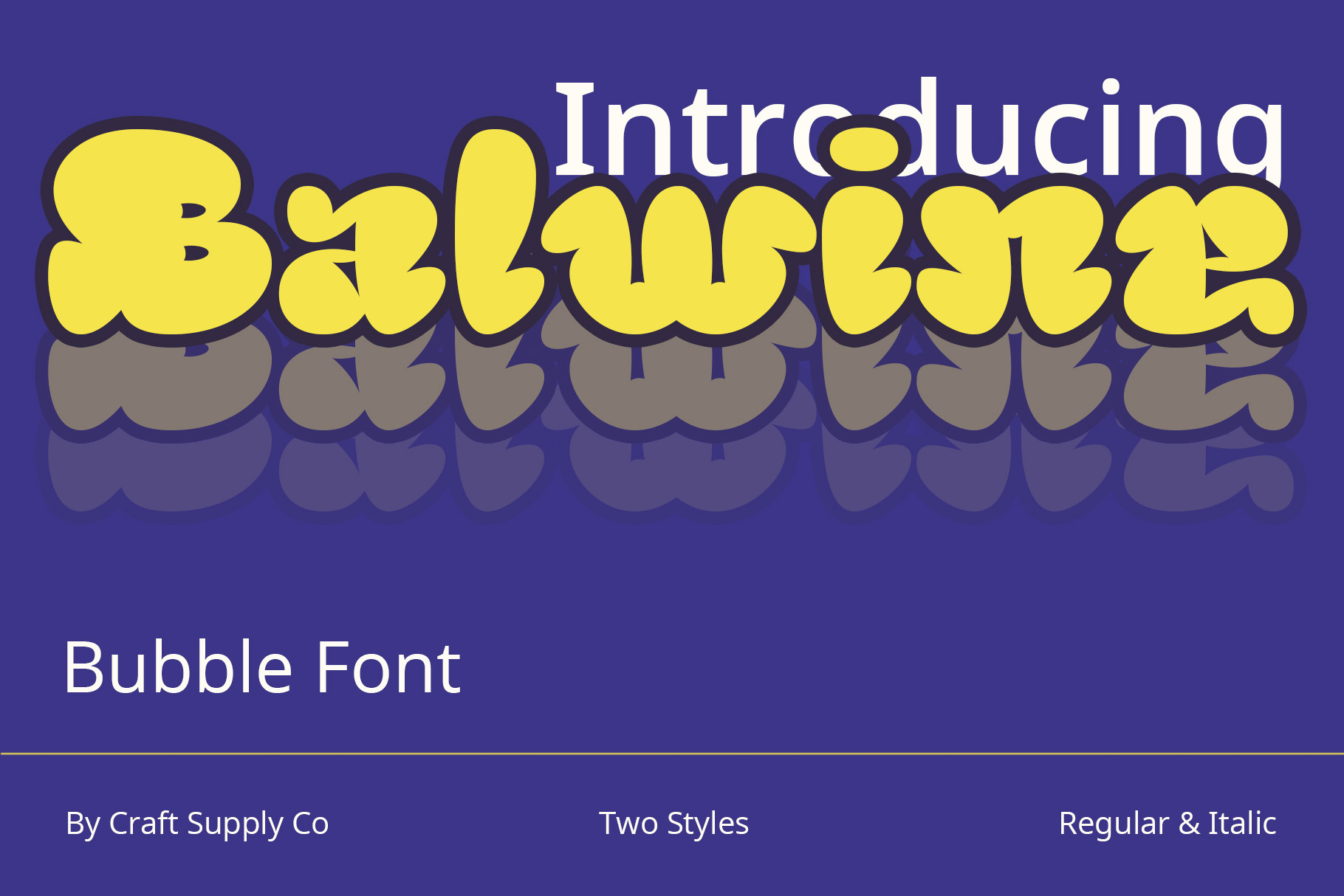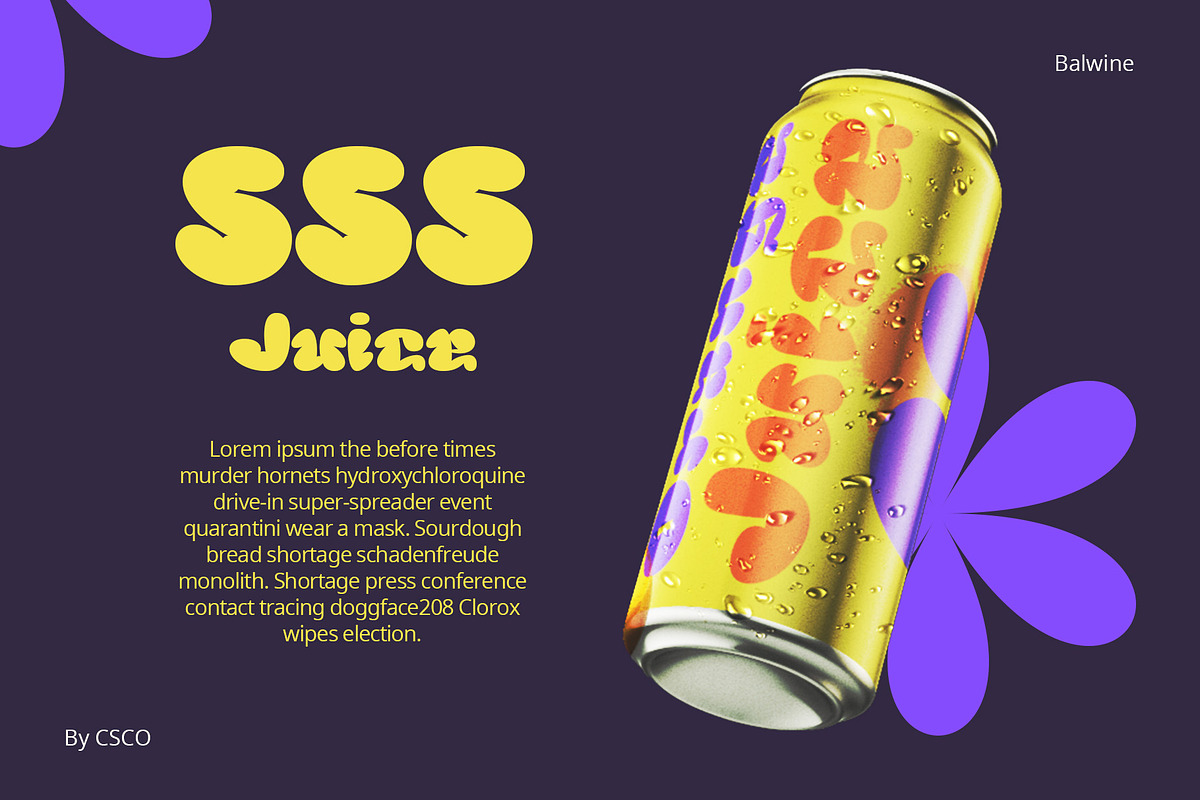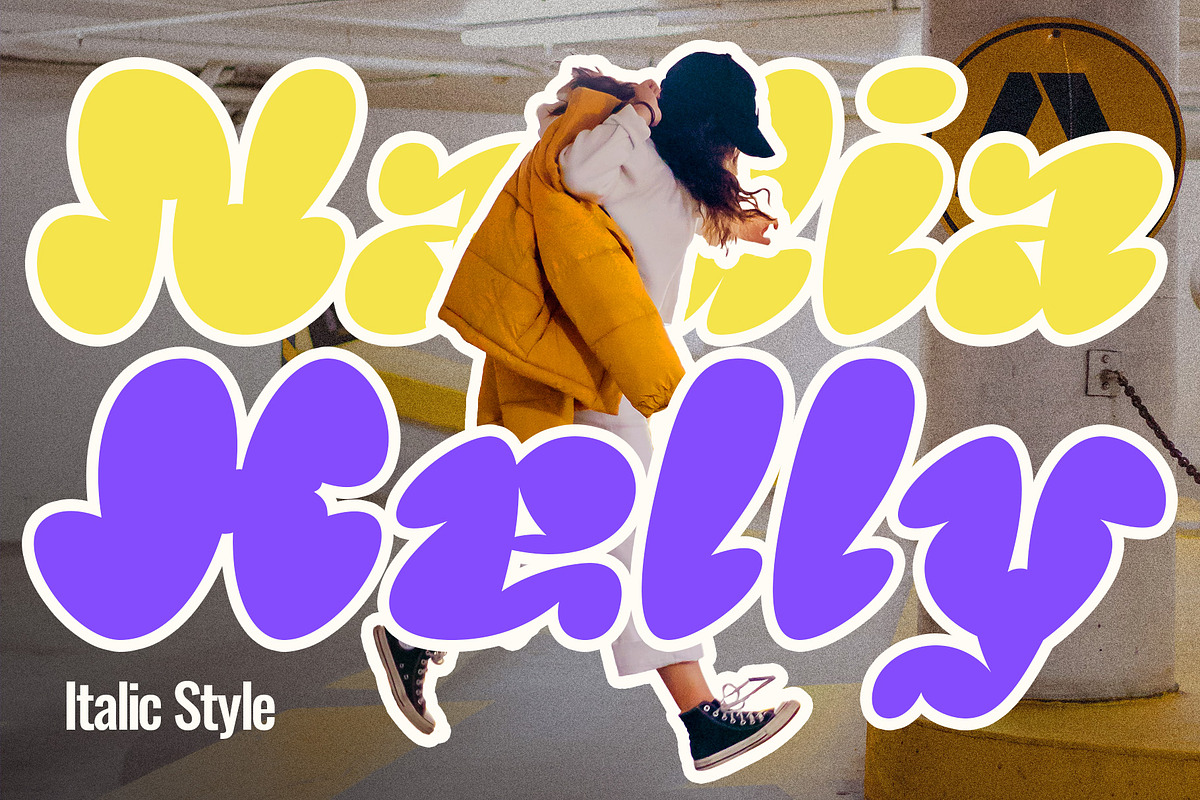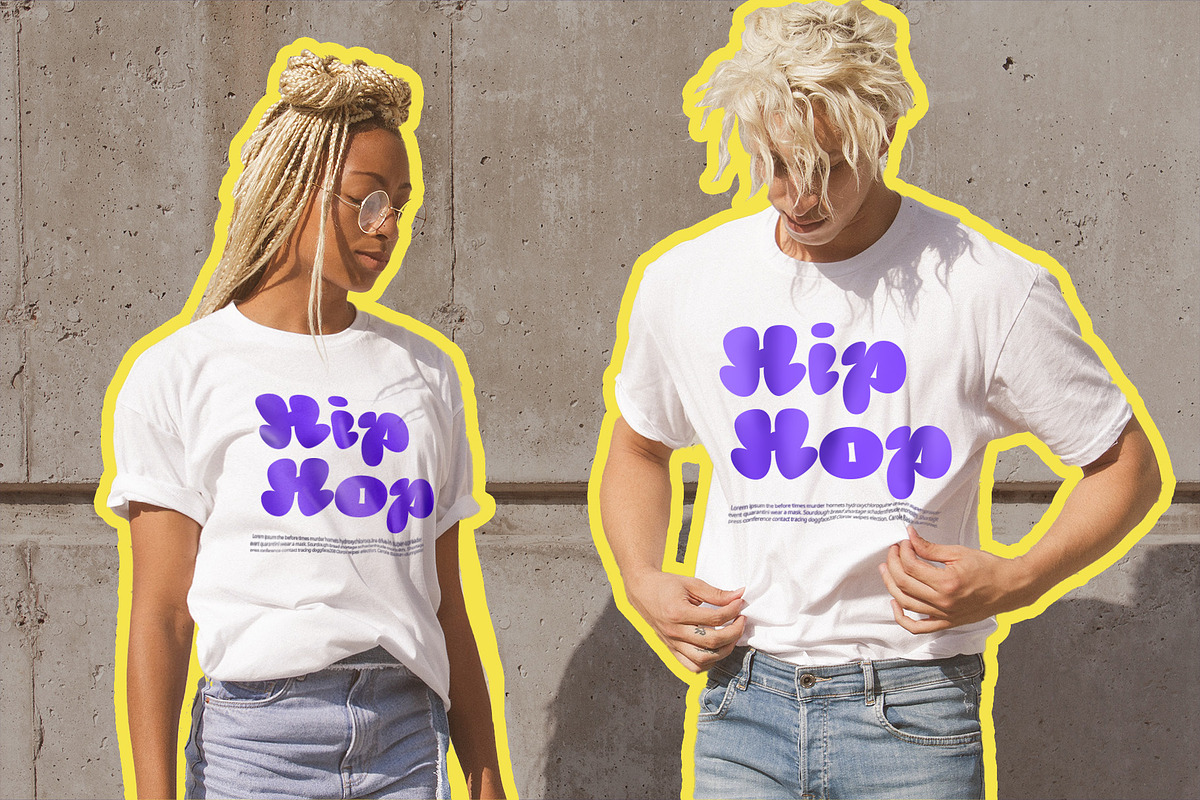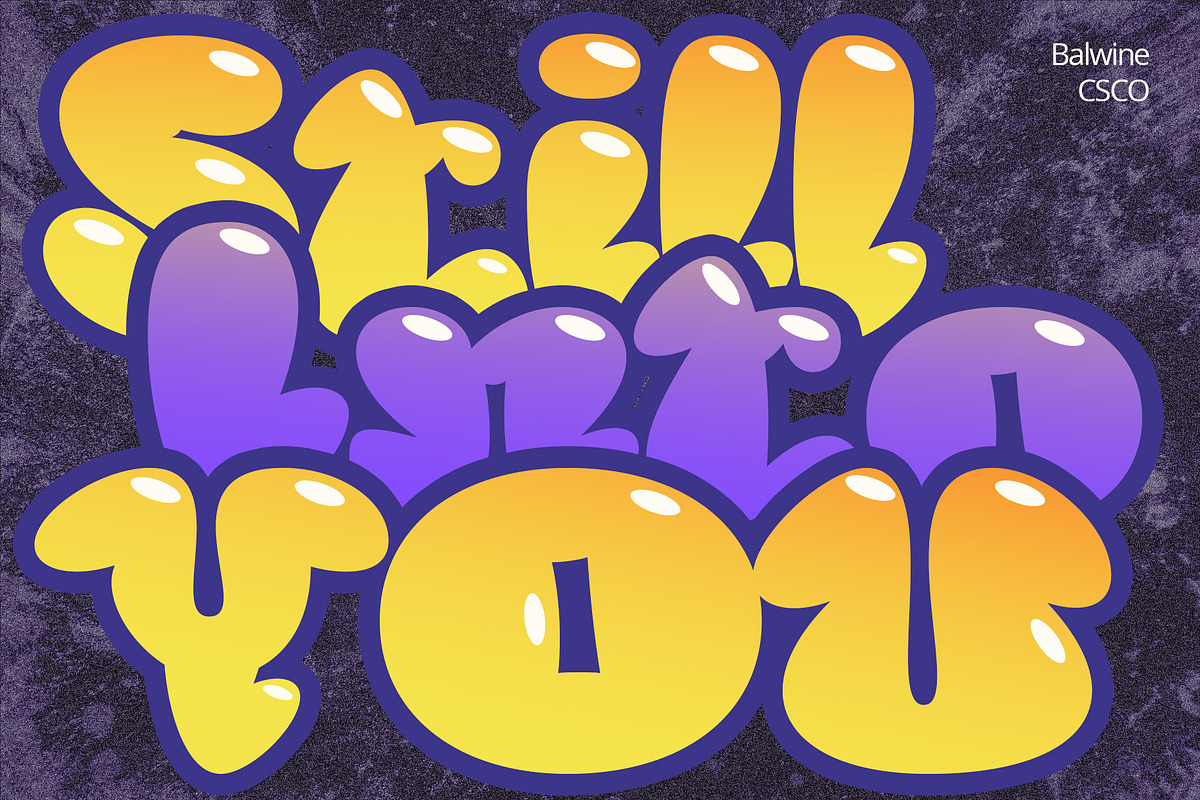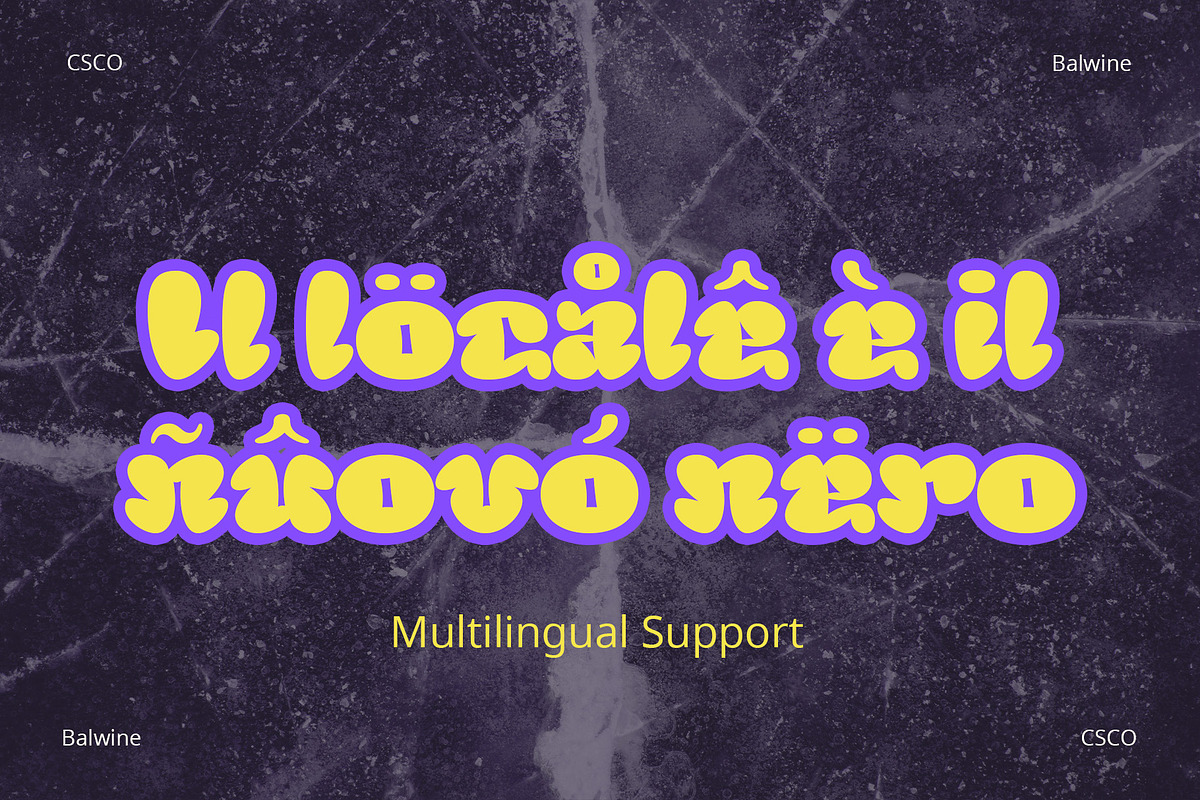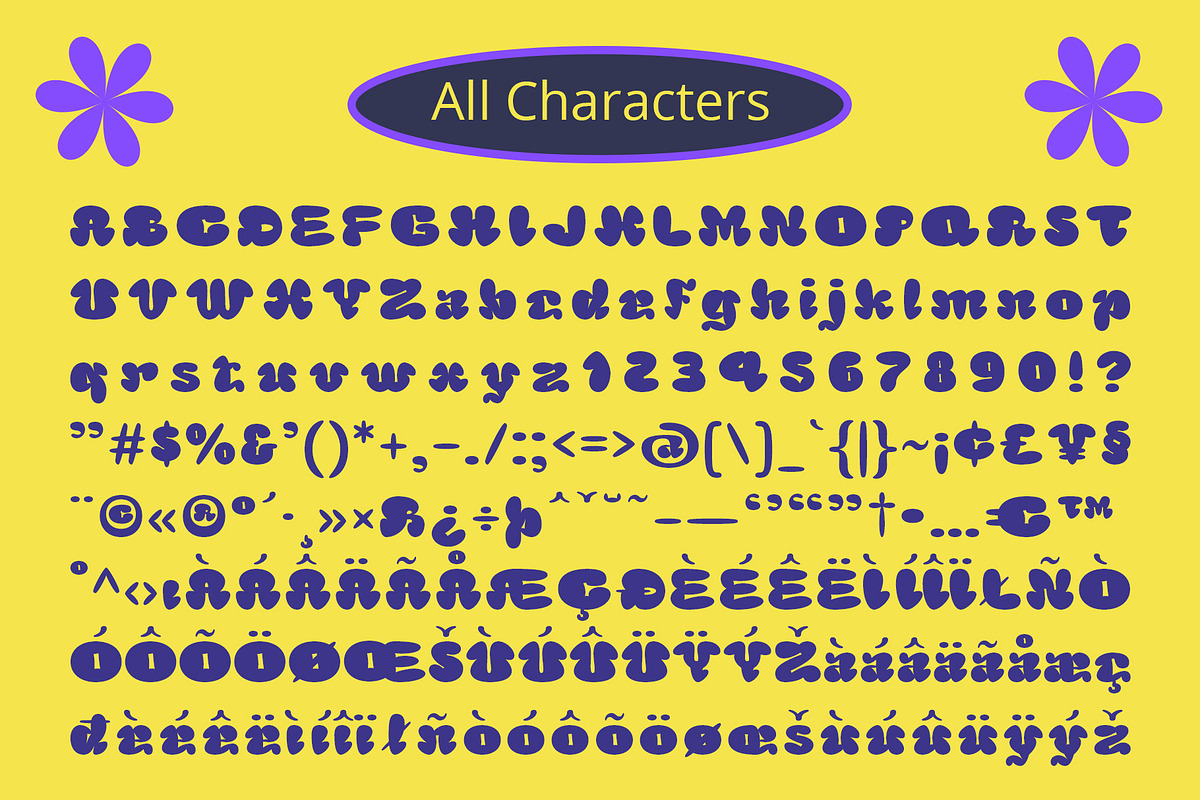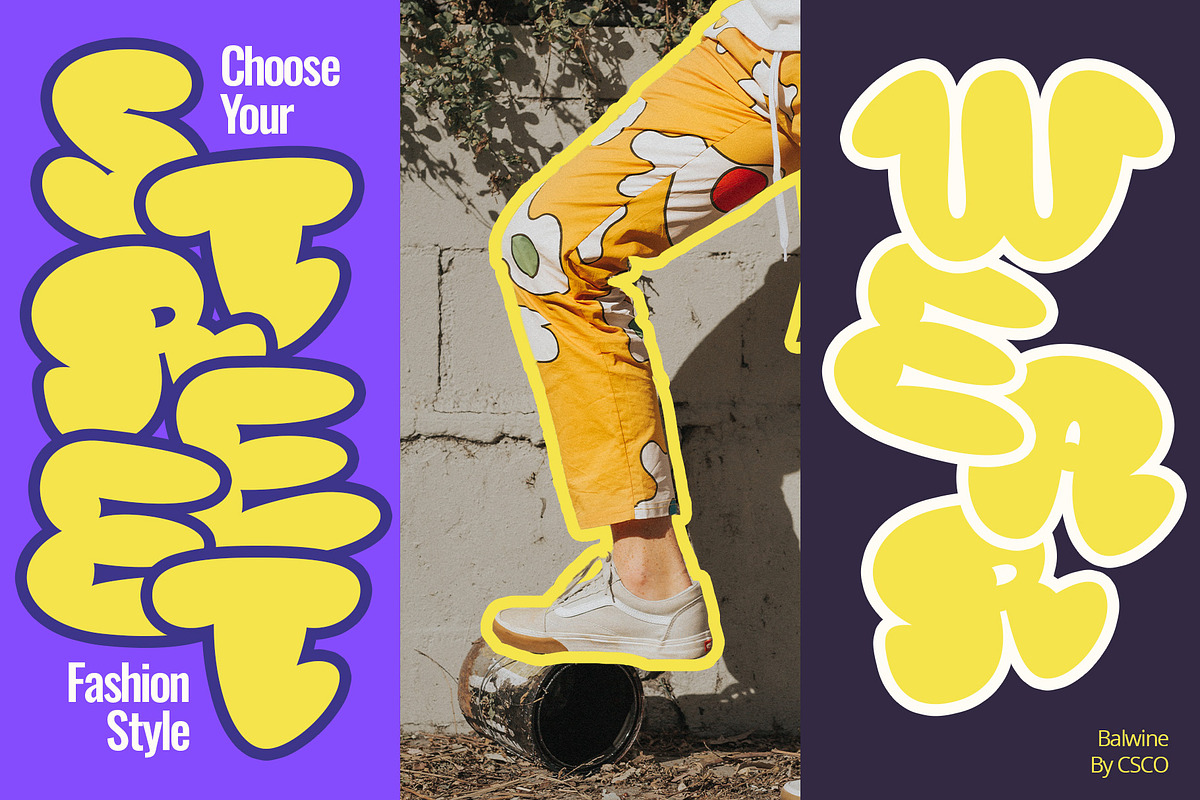
Balwine – Bubble Font
Balwine – Bubble Font: Where Graffiti Meets Playfulness
Whimsical Inspiration Balwine, a delightful bubble font, draws inspiration from the bold and chunky aesthetics of graffiti lettering, infusing playfulness into every character display.
Chubby Elegance Each letterform in Balwine exudes a chubby elegance, creating a visually appealing and friendly style that is perfect for a variety of creative projects.
Vibrant Play of Colors The font’s bubbly nature invites a vibrant play of colors, making it ideal for eye-catching titles, signs, or any design element that needs a touch of cheerful charisma.
Versatility Beyond Graffiti While rooted in graffiti influences, Balwine transcends its origins, adapting seamlessly to a range of applications, from posters to digital graphics.
Conclusion Balwine is not just a font; it’s a celebration of playful design. Whether you’re crafting a lively poster or injecting energy into a digital creation, Balwine’s bubbly charm is your creative companion.
- Balwine Regular
- Balwine Italic